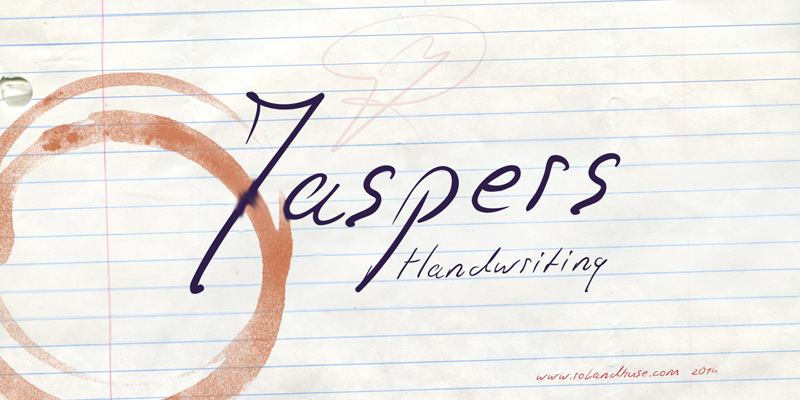
Preview and download Jaspers Handwriting Font. Created by Runes & Fonts in Script Handwritten styles with Free for personal use license.
JASPERS HANDWRITING is a personal handwriting font of a good friend of mine. This font is free for PERSONAL use only. For any commercial use (anything you make money from) please email me at contact@rolandhuse.com or send a donation via PayPal.me/rolandhuse Please contact me via myhandwritings@gmail.com also about the following: - This family does not contain all the language extensions, but I am willing to create any extensions on request - Discovering kerning problems while using - Or any other question or feedback. You MAY NOT sell my fonts or claim them as your own. You MAY NOT edit or rename my fonts. You MAY redistribute my fonts if: 1. You credit me (Roland Huse). 2. Keep the READ ME file intact within the zip folder. 3. Provide a link back to my website (www.rolandhuse.com). Thank you & I hope you like this font, Roland instagram: @rolandhusedesign http://www.rolandhuse.com |